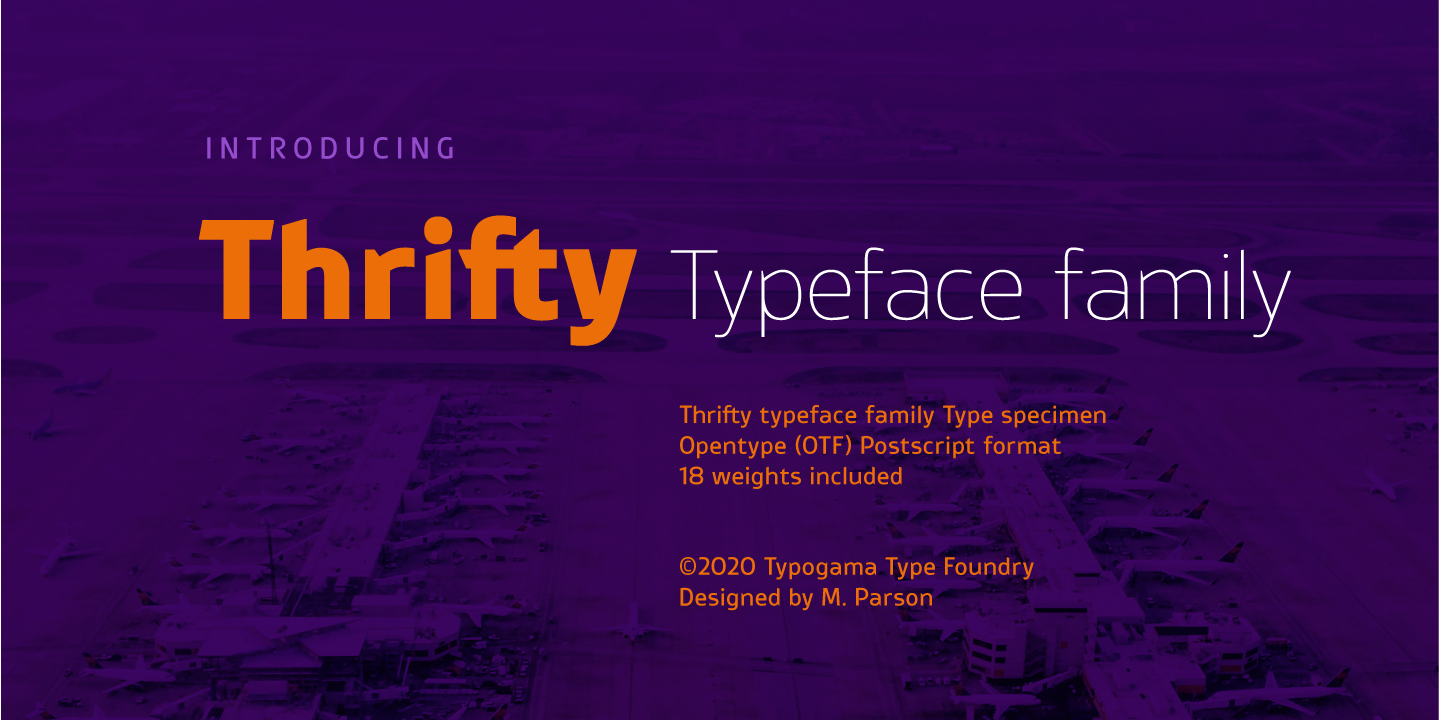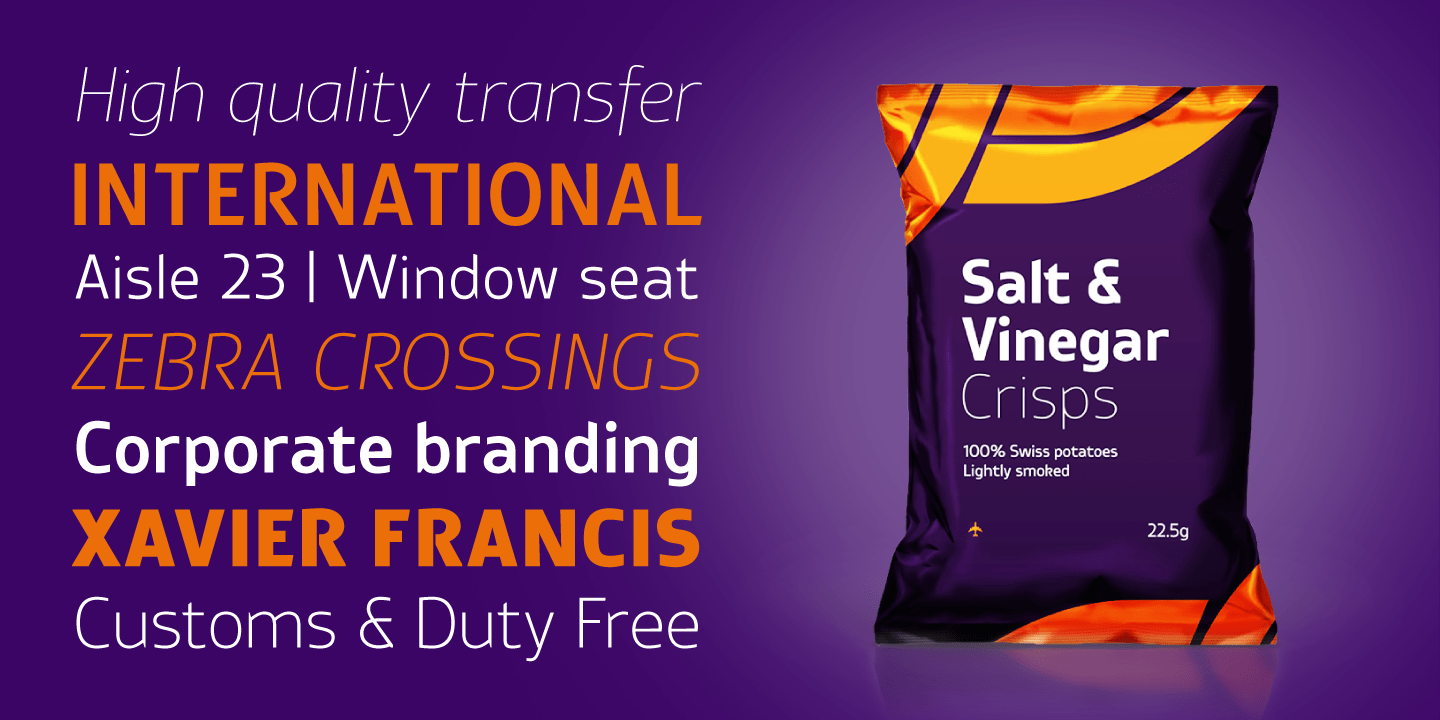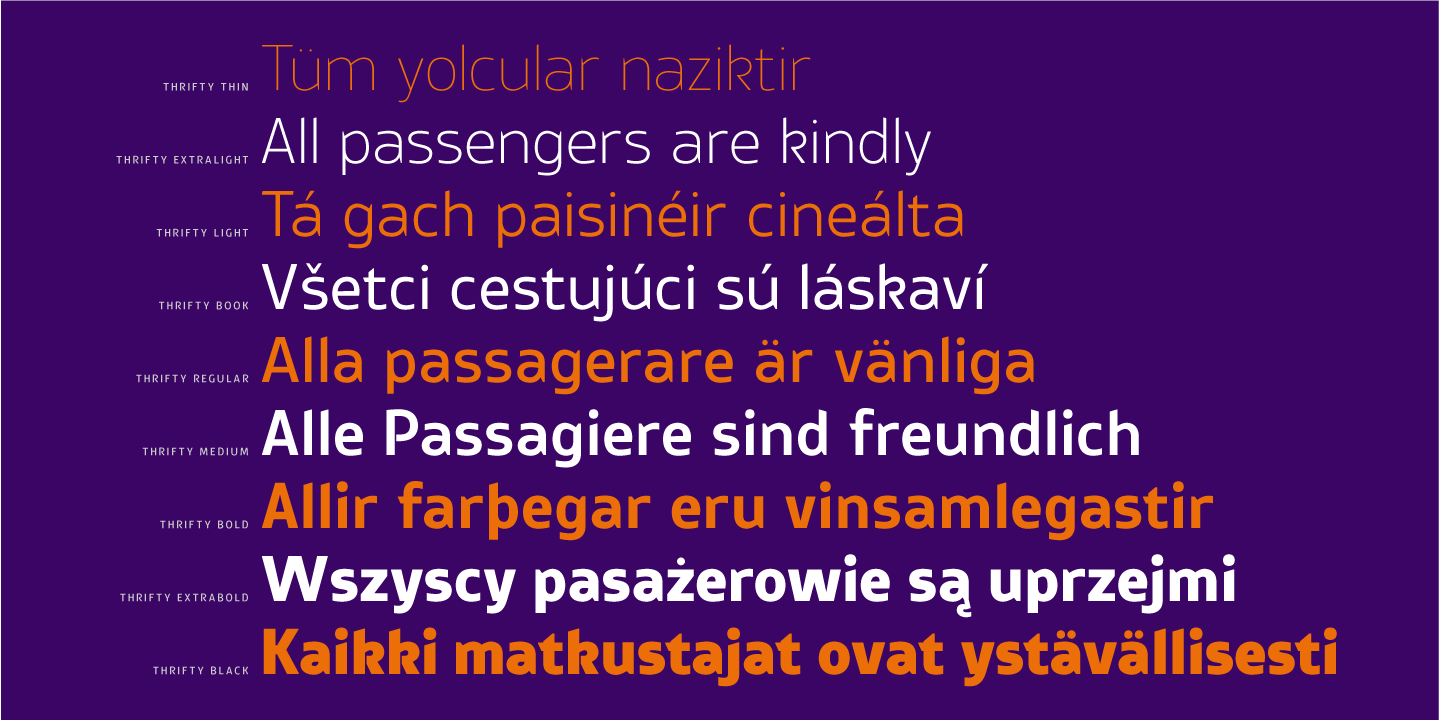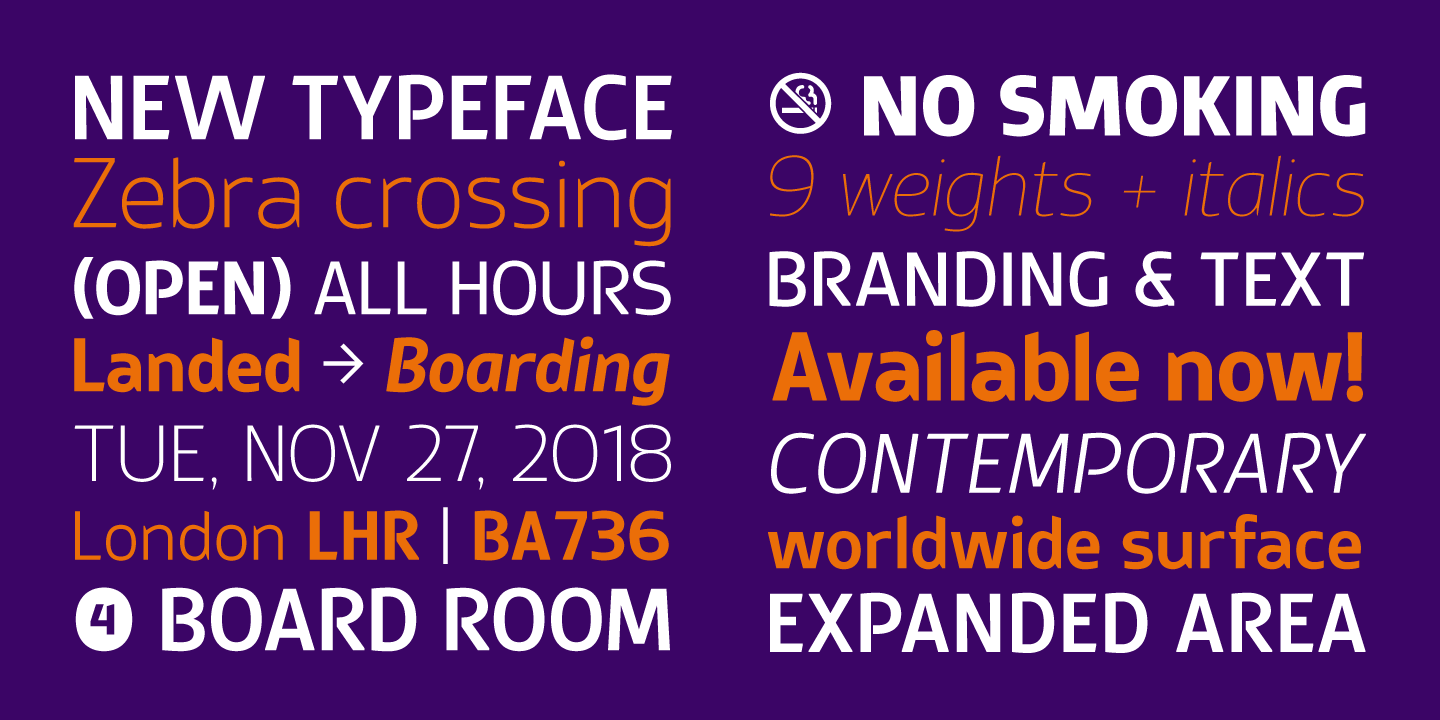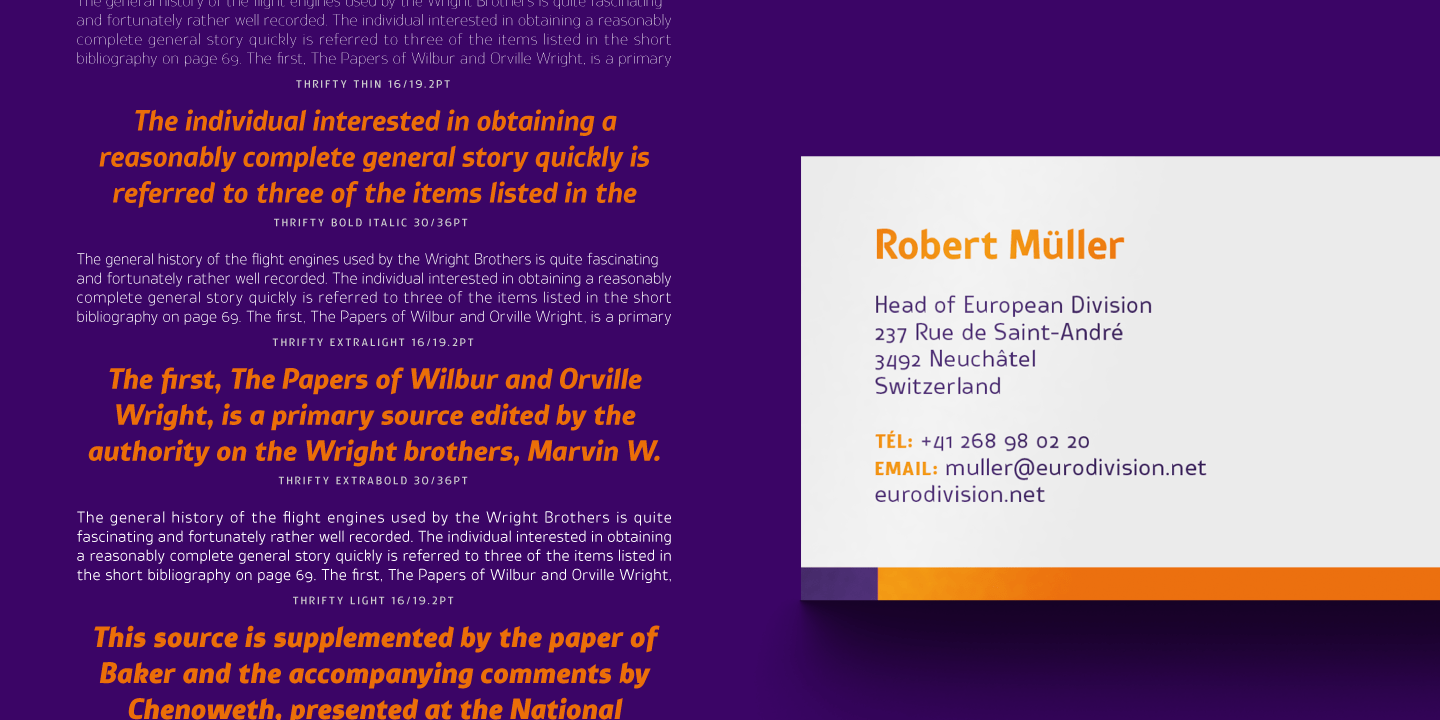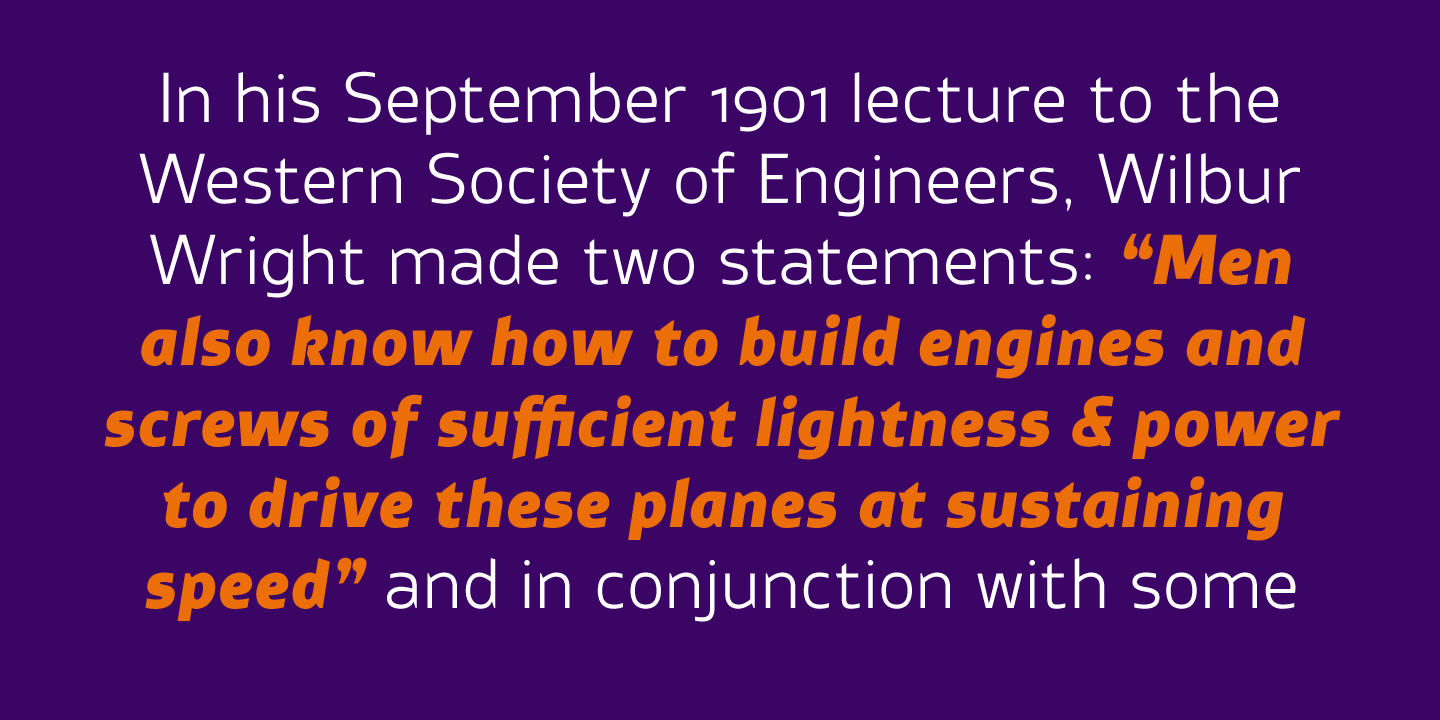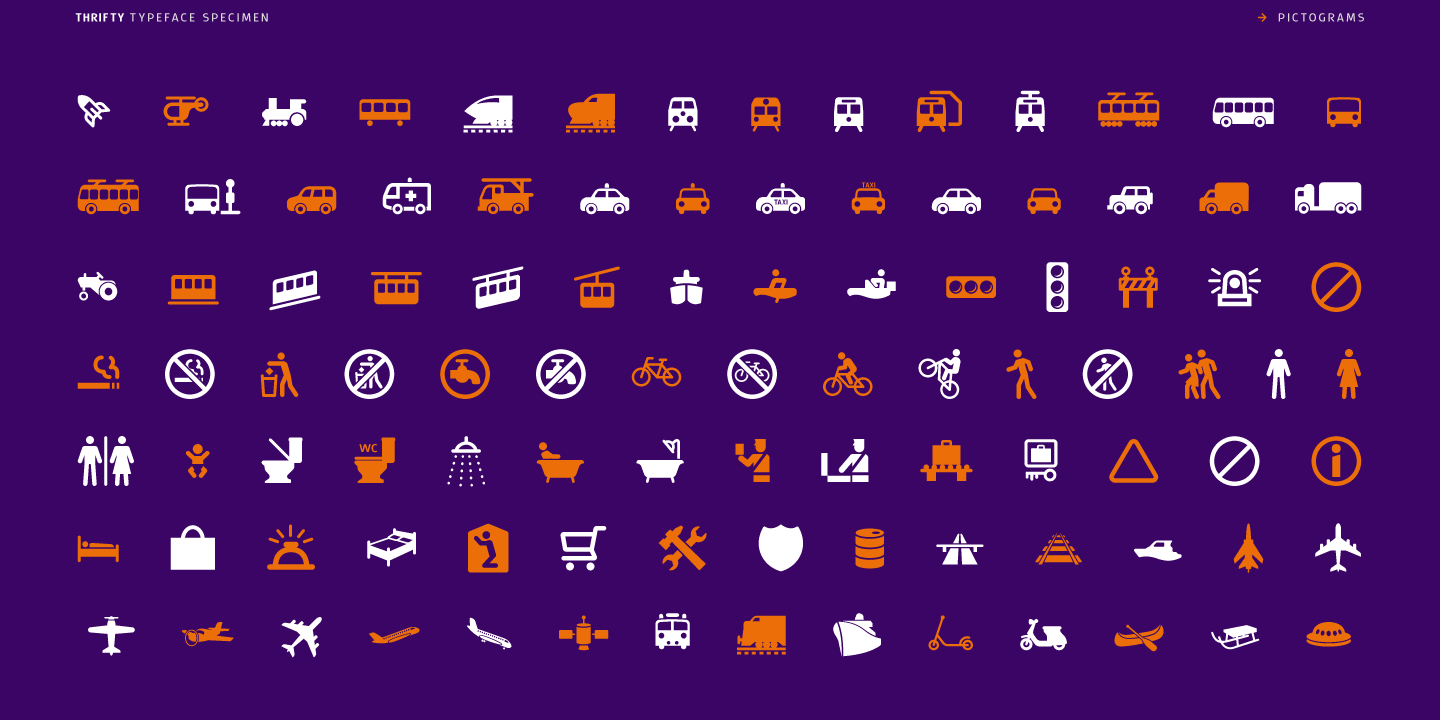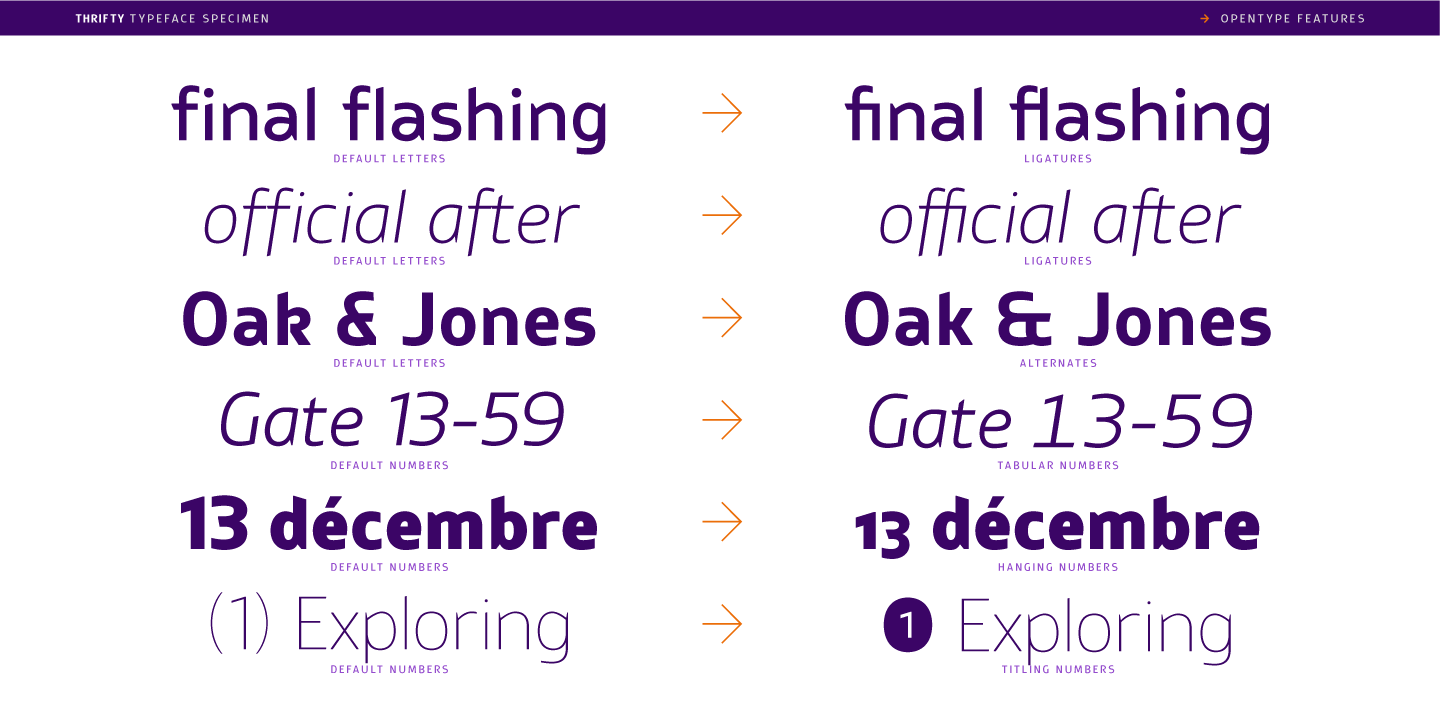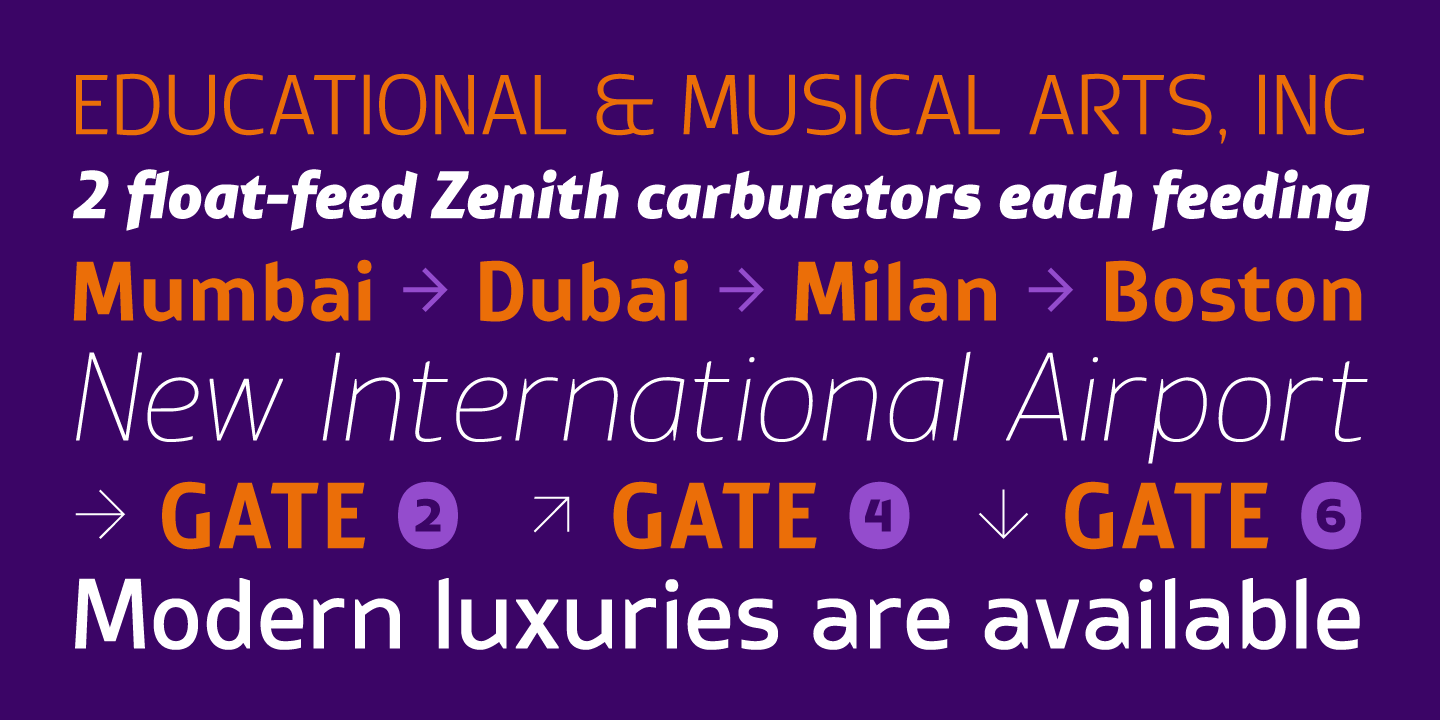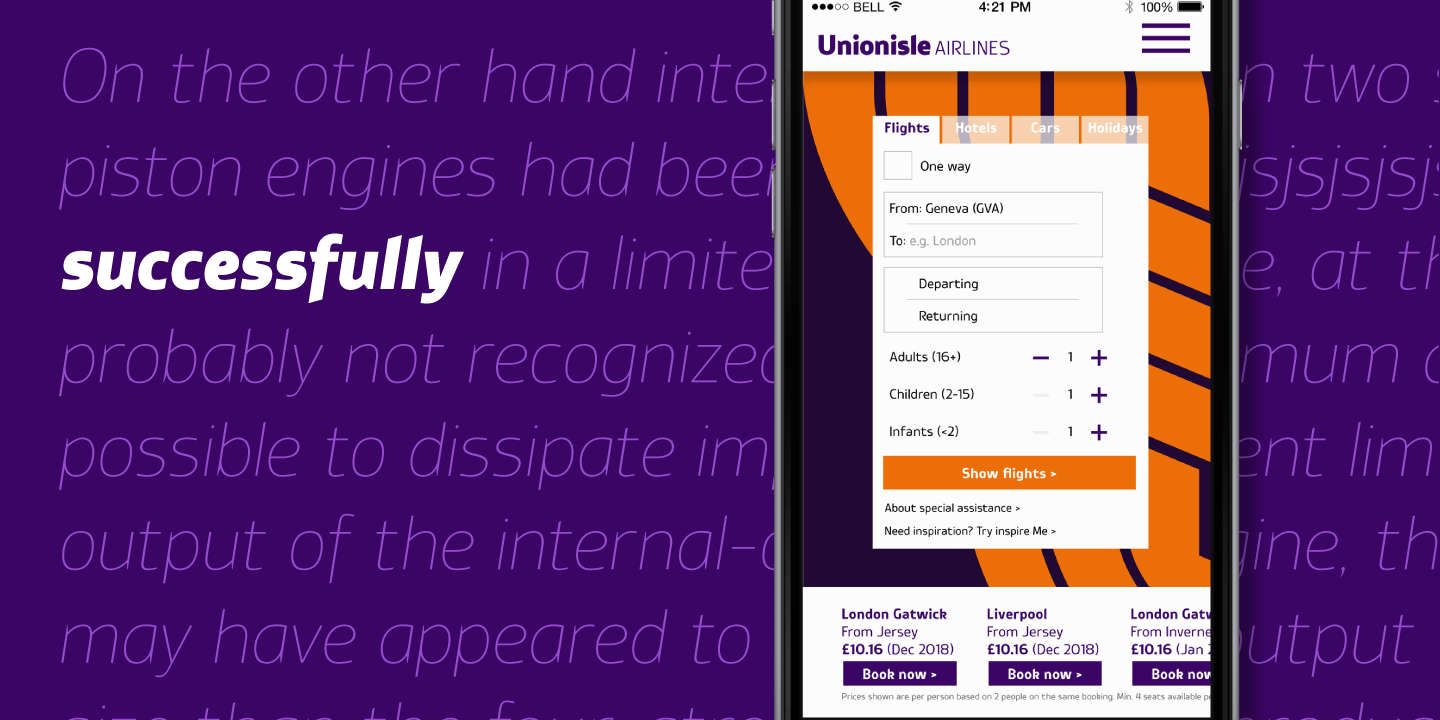
Thrifty
Font Family by Typogama
Thrifty is a clean, contemporary typeface family created for branding and communication design. With a narrow form and clear letter forms, this family is both suited for display and title settings while equally remaining legible in smaller point sizes. Through it's nine weights and accompanying italics plus a large glyph set that covers the majority of Latin based languages, Thrifty aims to offer a versatile and functional design. Thanks to the implementation of Opentype features, this family includes different sets of numerals, from tabular, hanging or scientific, it equally includes ligatures and free form fractions. Each weight equally offers a complete set of arrows and 99 different pictograms focused on themes of mobility and transport.